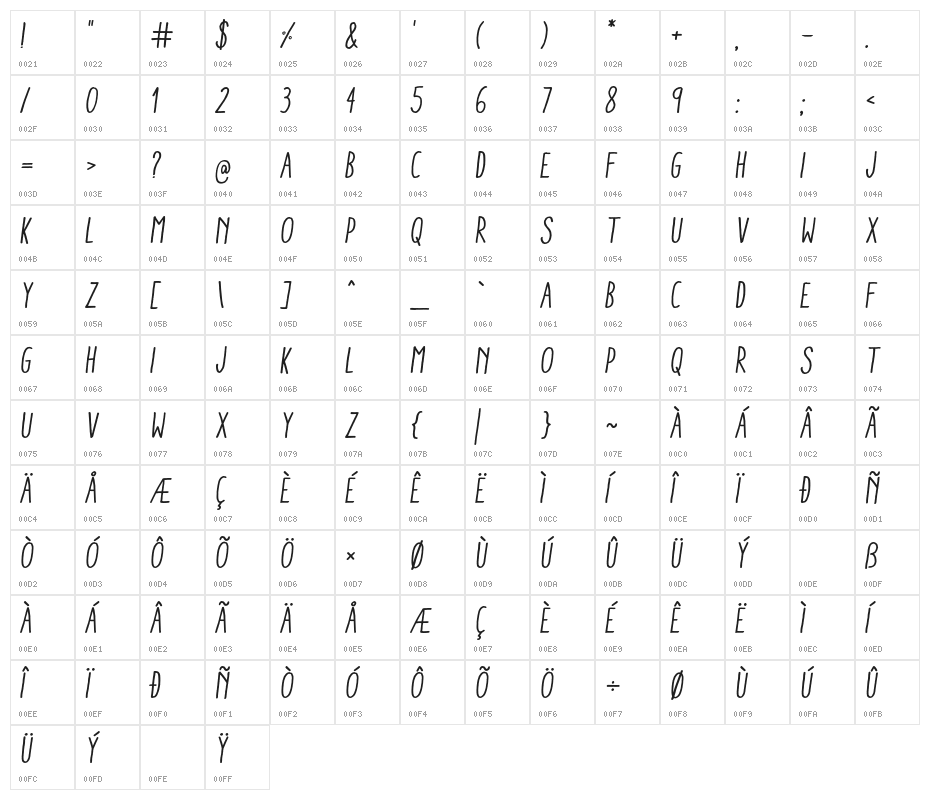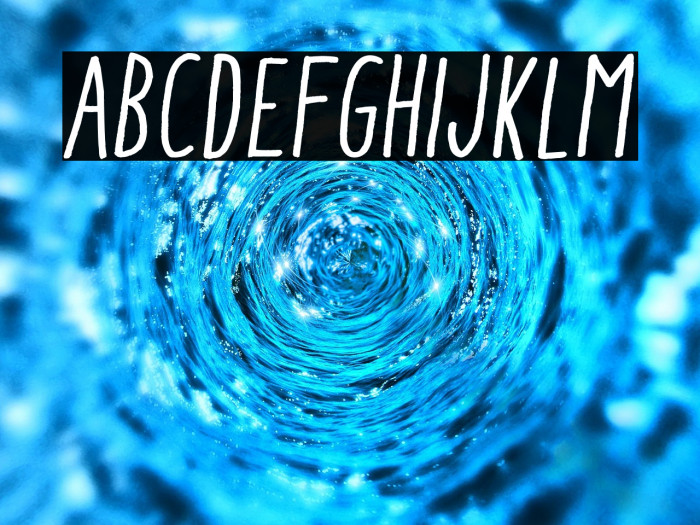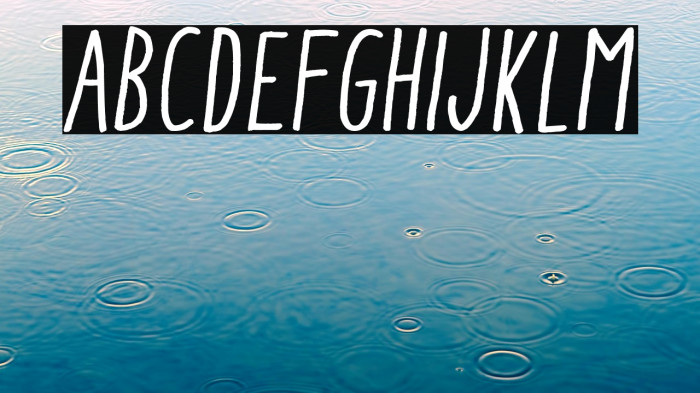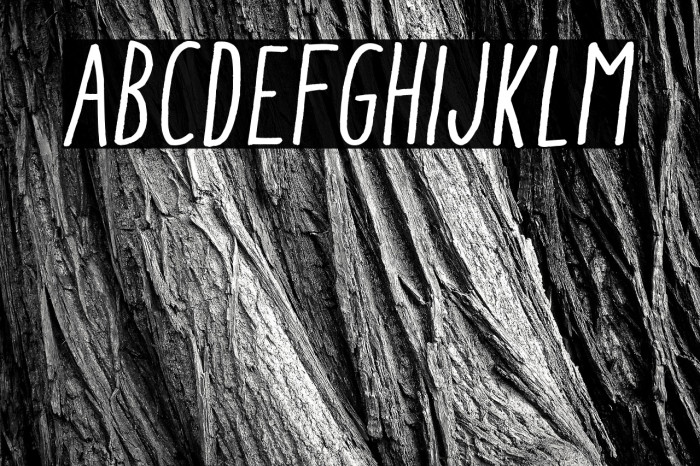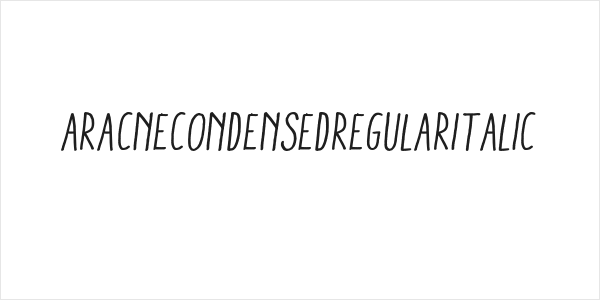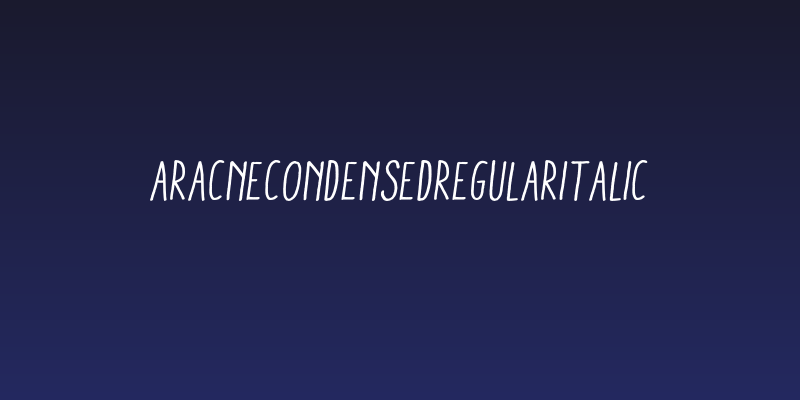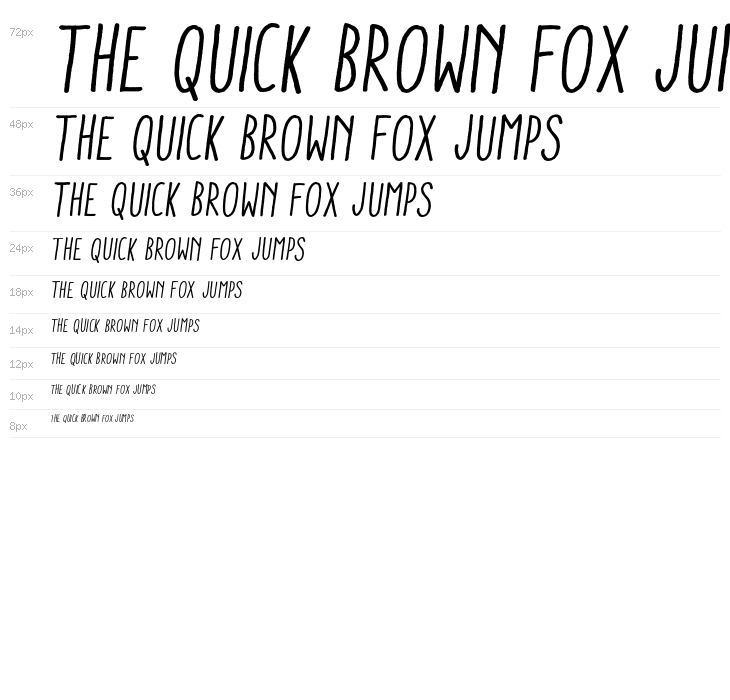
AracneCondensedRegularItalic Font
AracneCondensedRegularItalic Description
This font features a handwritten style with a condensed and slightly italicized appearance. The characters are tall and narrow, giving it a unique and personal touch. The strokes are consistent in width, providing a clean and uniform look. The font maintains a casual yet sophisticated feel, making it versatile for various design needs. The numerals and special characters complement the alphabet with the same narrow and elongated form, ensuring a cohesive overall appearance.